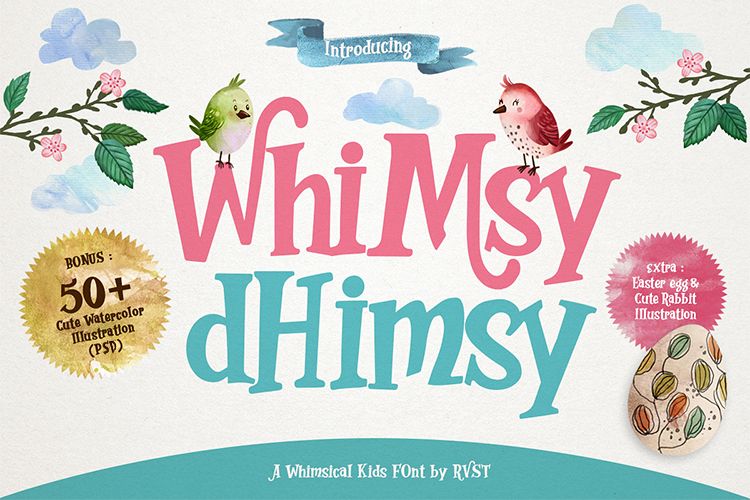
Whimsy Dhimsy
Fell adorable and dorky with an undeniably cute feel with Whimsy Dhimsy typeface and its wonderfully playful elements
for your craft, gift card, logos & branding, social media posts, advertisements & product designs.
Highlights:
• The perfect font choice for cute & Whimsical projects - watermarks, craft products, photography, logos, business cards, quotes, or gift cards.